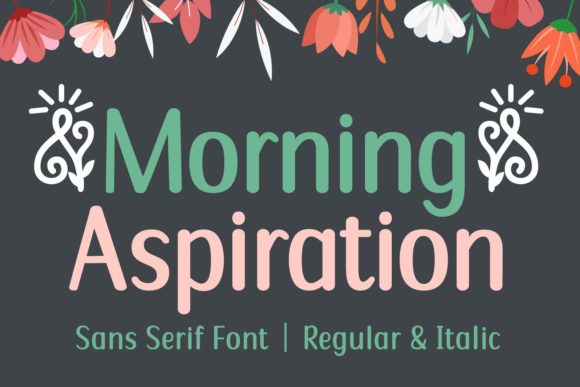
Introducing Morning Aspiration Font, the ultimate font duo that will transform your creative projects into masterpieces. This sans serif font exudes elegance and charm, captivating your audience with its timeless beauty.
With its regular and italic styles, Morning Aspiration offers endless possibilities for crafting unique and eye-catching designs. Its smooth curves and sharp edges create a striking contrast, adding depth and dimension to your creations.
Unleash your creativity and let Morning Aspiration elevate your designs to new heights. Whether you're creating personalized invitations, stunning social media posts, or eye-catching logos, this font will leave a lasting impression.
Dive into the world of Morning Aspiration and discover the endless possibilities it holds. Let your imagination soar as you design enchanting invitations that reflect your personal style and make your special moments truly unforgettable.
Transform your online presence with Morning Aspiration, creating captivating social media posts that stand out from the crowd. Its captivating charm will draw your audience in, ensuring your message is seen and remembered.
Morning Aspiration is not just a font; it's an expression of your creativity. Its versatility empowers you to craft designs that resonate with your audience, leaving them inspired and eager for more.
Experience the joy of crafting with Morning Aspiration, the font that ignites your imagination and brings your creative visions to life. Discover the endless possibilities that await you and embark on a design journey that will leave you breathless.